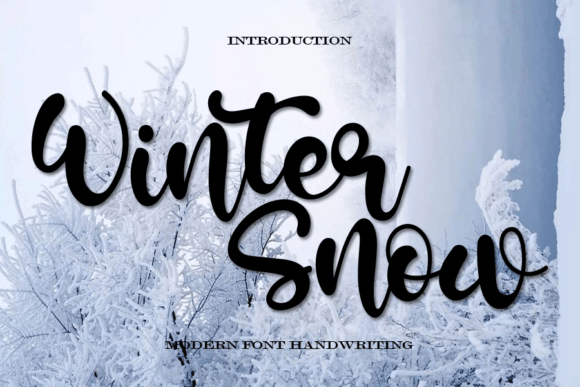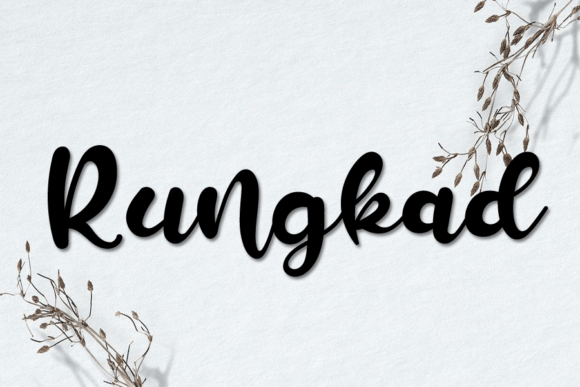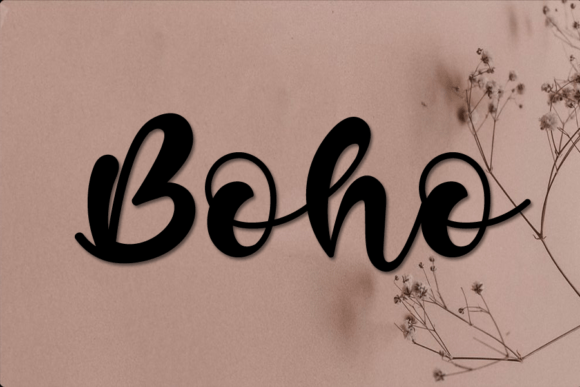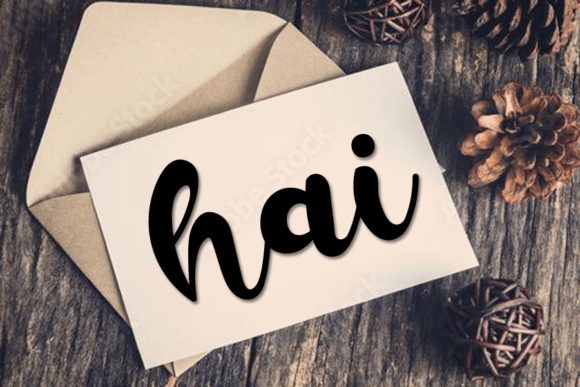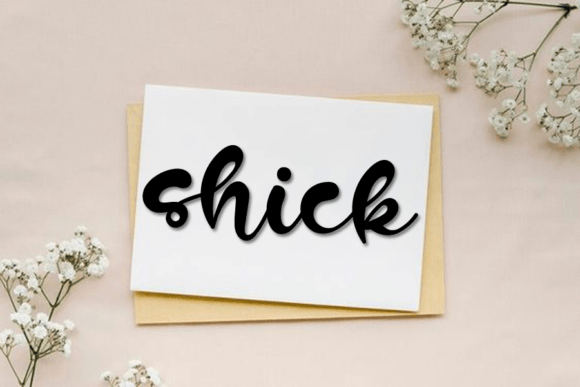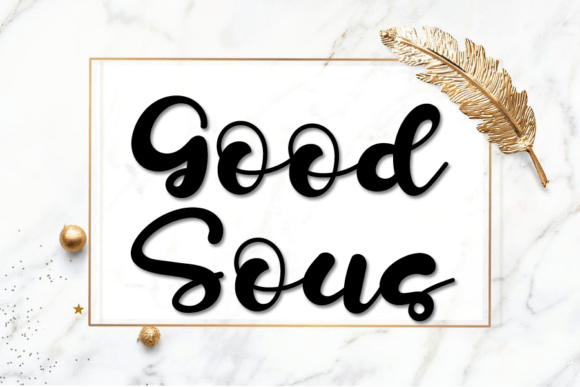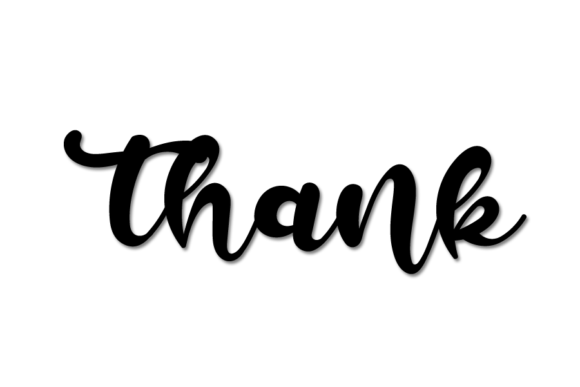
Winter Snow Font
Add a Personal Touch with Winter Snow Font
Winter Snow Font is a classic handwritten script designed with a spontaneous and free-flowing style. Its soft curves and smooth lines bring warmth and charm to any design, making it perfect for personal and professional projects alike. Whether you’re crafting digital artwork or printed materials, this font is a versatile addition to your typeface collection.
Designed for Versatile Use
The simplicity and natural appeal of Winter SnowFont make it ideal for various creative needs. You can use this font confidently in:
• Logotypes and branding
• Corporate identity and marketing
• Apparel and product labels
• Posters, magazines, and book covers
• Headlines and social media graphics
• Cartoons, comics, and YouTube thumbnails
• Music, movies, and game titles
• Websites and digital presentations
This script font is designed to adapt to any platform—print or screen—while preserving a friendly and approachable vibe.
Handcrafted Style for Every Occasion
With its casually elegant design, Winter SnowFont delivers the feel of real handwriting. It works especially well for designers looking to add a human touch to their visuals. From holiday promotions to everyday branding, this font offers timeless appeal across all seasons.